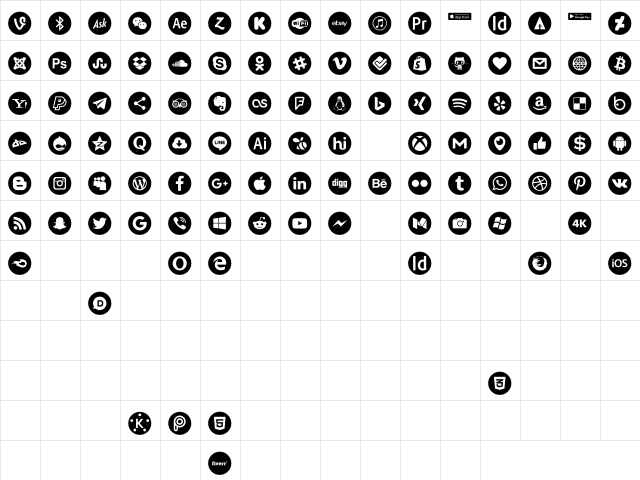
Complete font 100 icons Regular glyph index. Displaying only characters natively supported by font 100 icons Regular font.
font 100 icons is a composed and adaptable typeface that performs quietly and consistently across a wide range of design contexts.